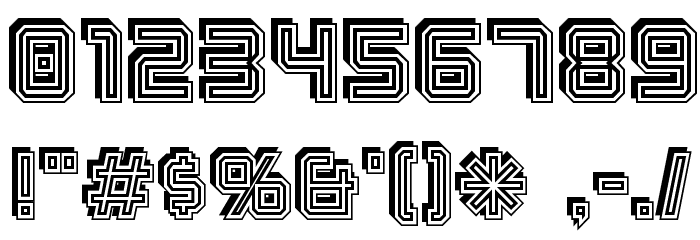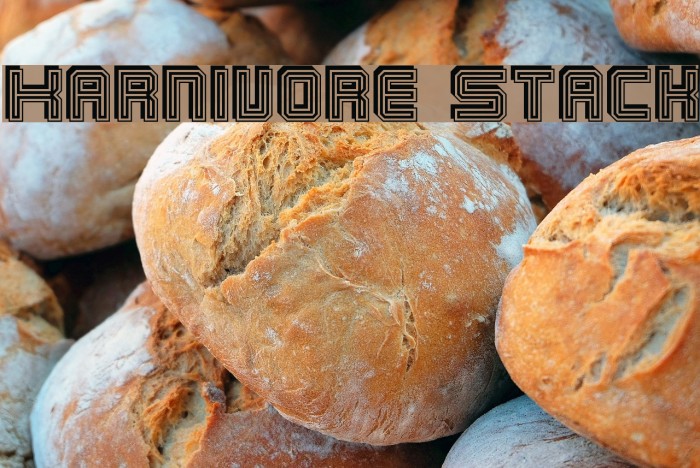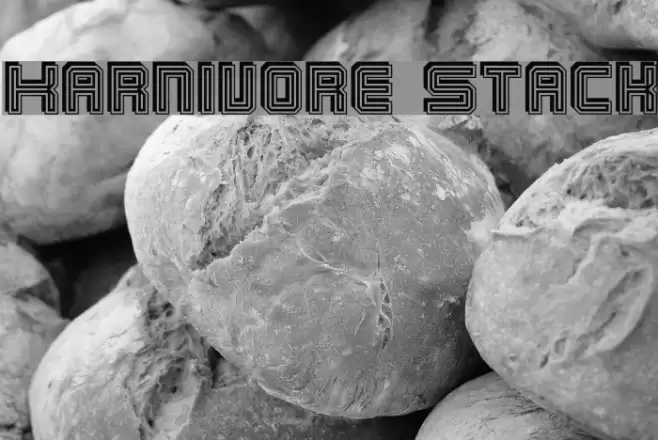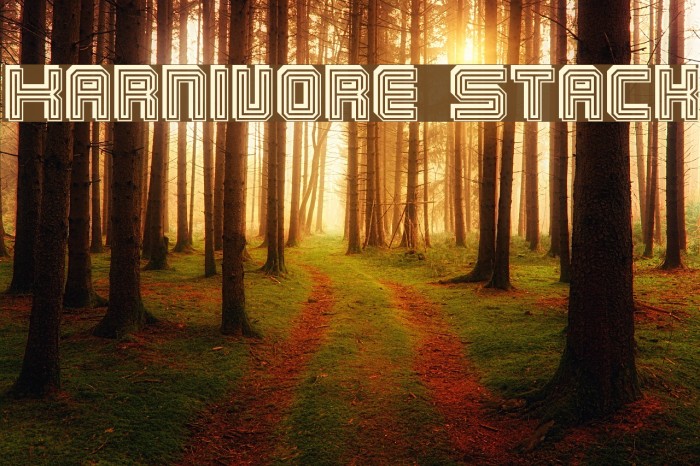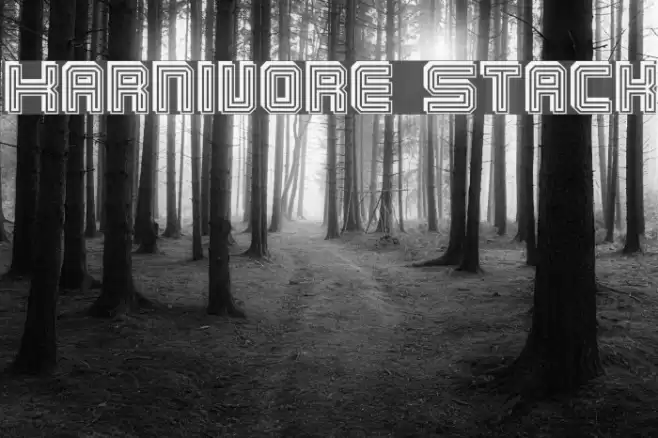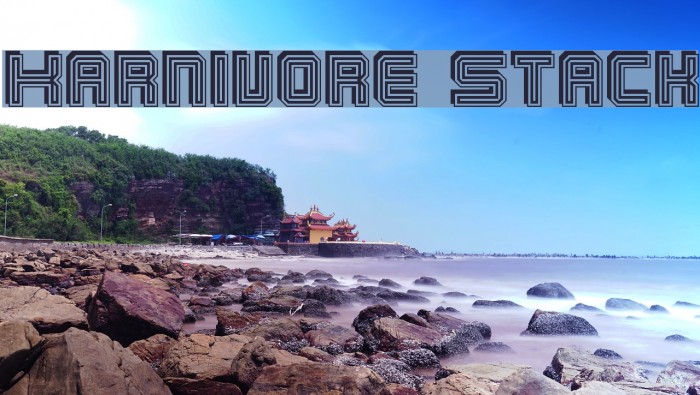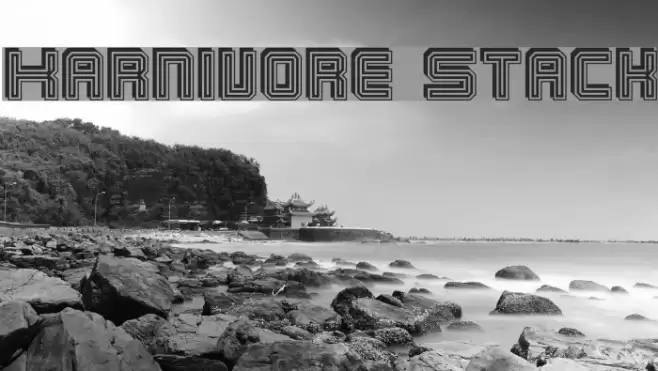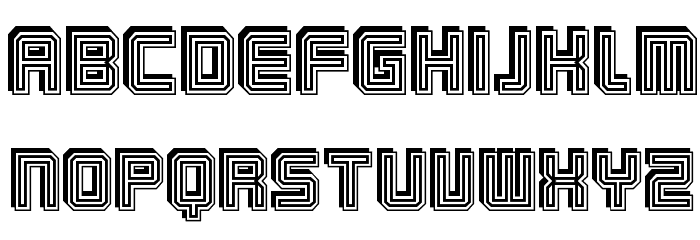
Karnivore Stack Font
Karnivore Stack Description
This font features a bold, geometric design with a distinct three-dimensional effect. Each character is outlined with multiple layers, creating a sense of depth and complexity. The uppercase and lowercase letters maintain a consistent style, emphasizing sharp angles and clean lines. Numbers and special characters are equally bold and structured, making them stand out. The overall look is modern and eye-catching, suitable for projects that require a strong visual impact.
| Proposed Projects | Ideal for posters, logos, video game graphics, and any design needing a striking, modern aesthetic. |